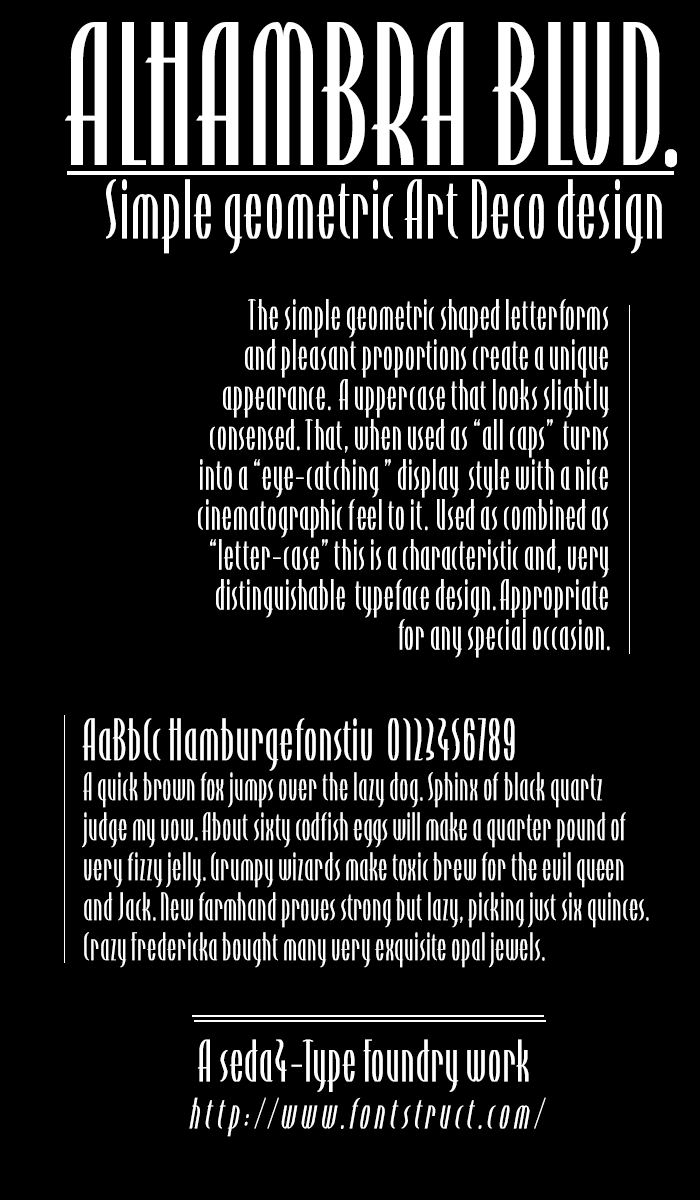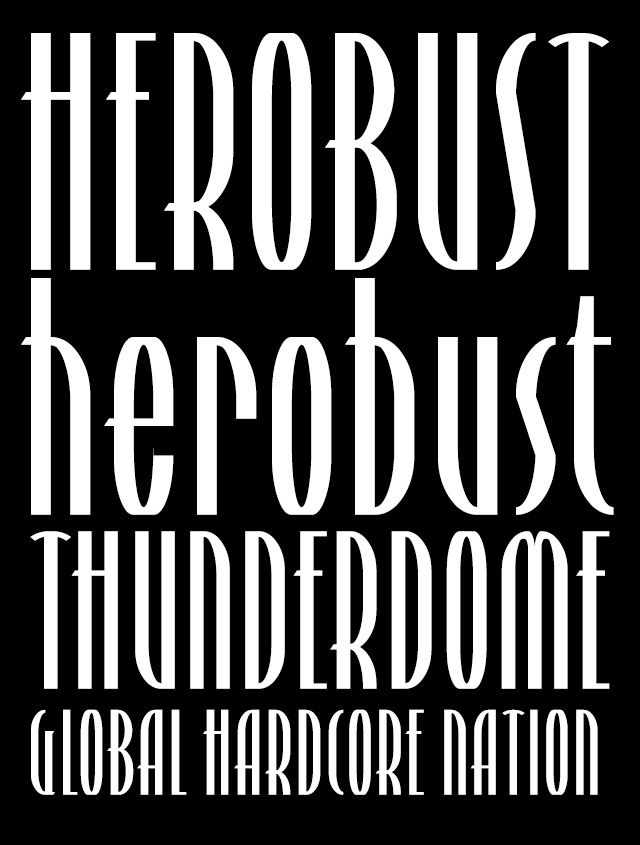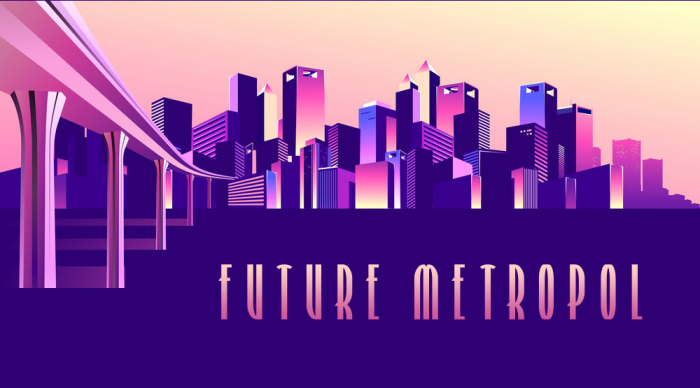
So cool.  NICE JOB!
Good art deco. For f t s c and bowl characters still need to fix side bearings. The numbers are a bit strange, OK, the digital has four interesting flame shaped elements that would fit the Cyrillic б.
You even made a Cyrillic charecter Ж, it would be cool to make all Cyrillic.
Hey Dimitiy thanks first of all. I know there has a lot of metrics adjustments remain to be done, especially the more fine details as you mentioned. I kind of deliberately dide the numerals that way. I might dive into Cyrillic when I completed some more of the extended latin first. I keep it in mind ;)
This is really sweet.